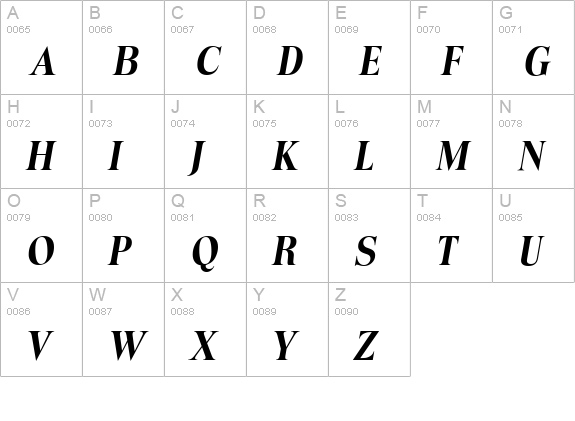
ToledoSerial-BoldItalic font is a bold and dynamic typeface that exudes a sense of strength and modernity. Its italicized design adds a touch of sophistication, making it perfect for projects that require a blend of boldness and elegance. The sleek and sleek lines of this font make it ideal for headlines, titles, and branding materials. What's even better is that ToledoSerial-BoldItalic font is available for free download at FontsMarket.com! This means you can easily access and use this eye-catching font for your personal or commercial projects without any cost. Don't miss out on the opportunity to enhance your designs with the striking ToledoSerial-BoldItalic font today.